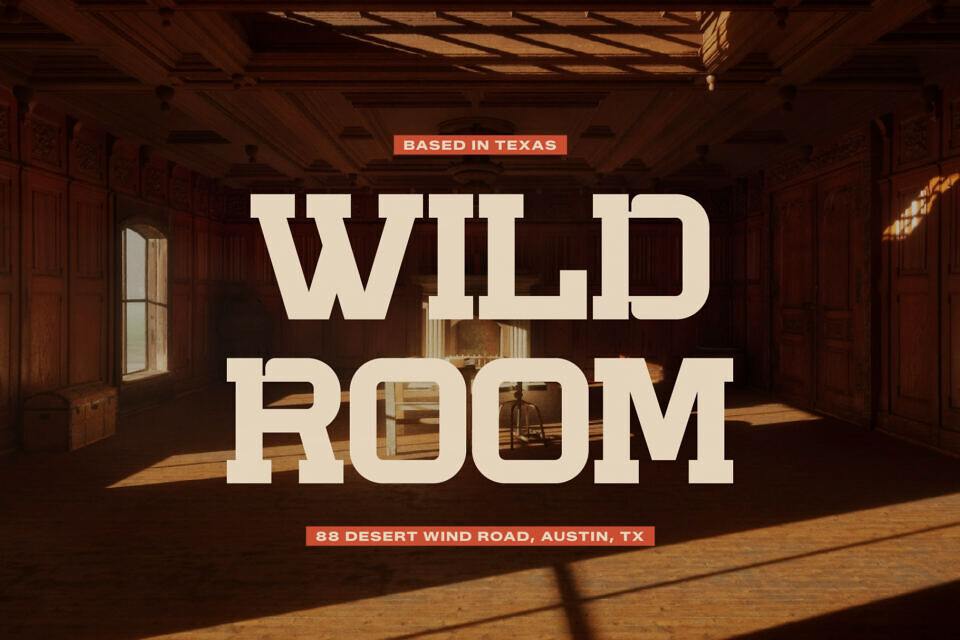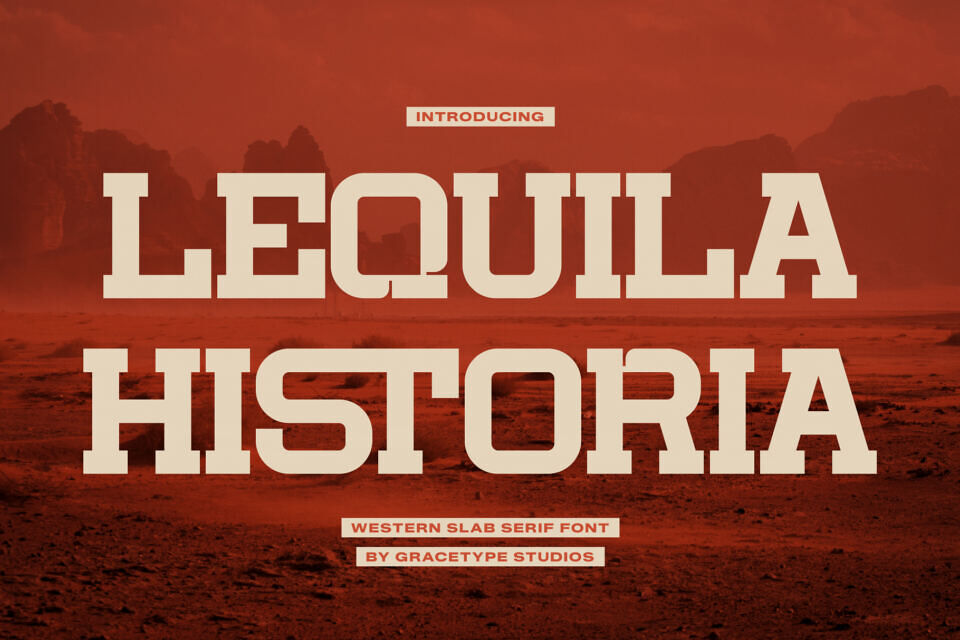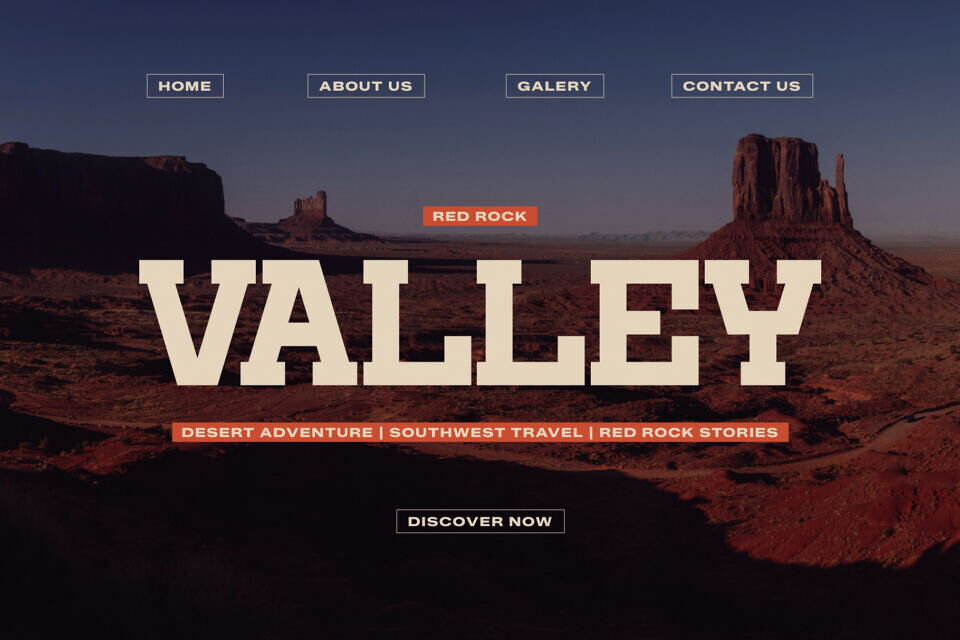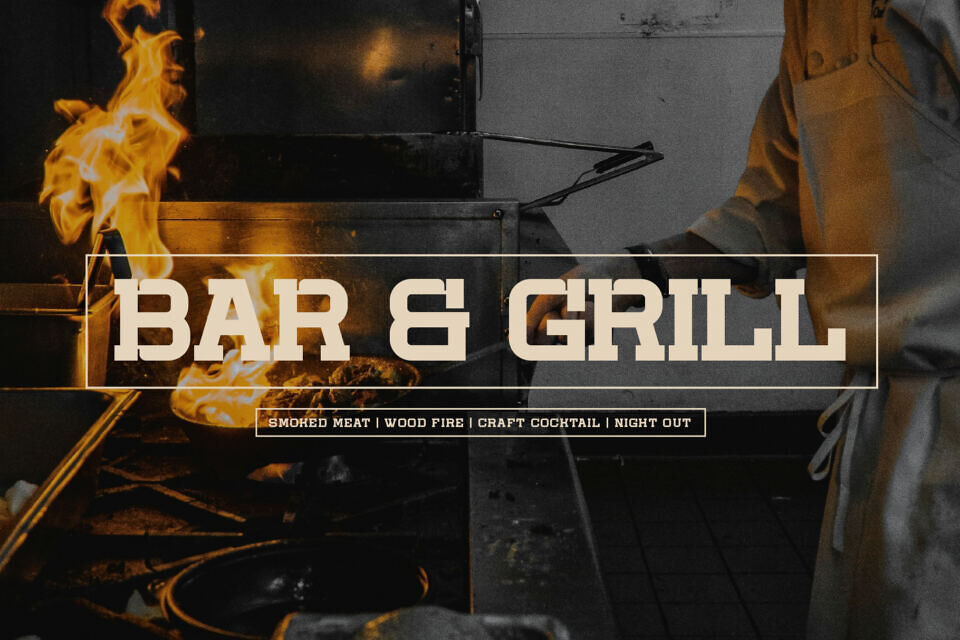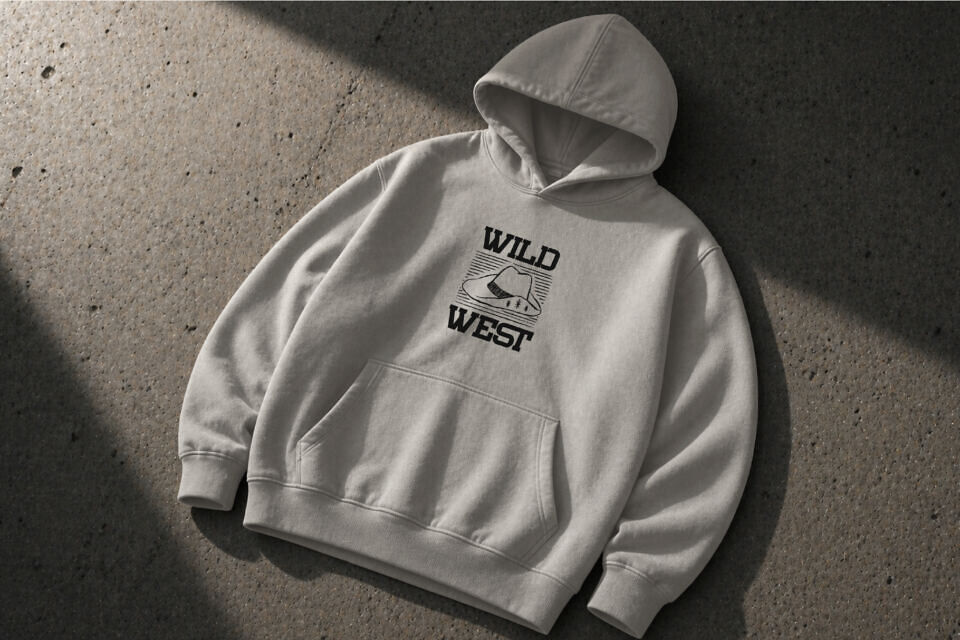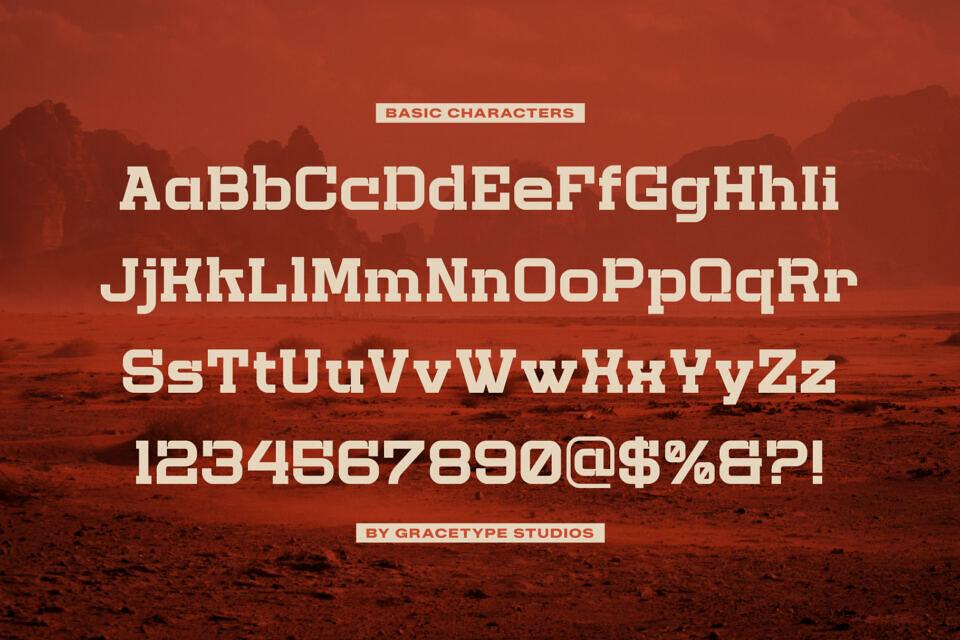
Lequila Historia Font
Channel the rugged spirit of the frontier with a bold, modern edge! Lequila Historia is a powerful western slab serif font designed to give your headlines maximum impact and a timeless vintage character. This heavy uppercase display typeface stands tall with thick, blocky serifs and clean, sturdy lines that look as if they were carved straight out of the Old West.
With its commanding presence and excellent legibility, it’s the perfect asset for bold branding, dusty desert photography backdrops, retro saloon signage, thematic food and beverage labels, product packaging, and vintage poster headlines.